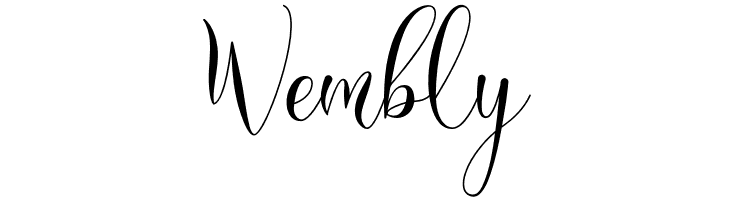
An elegant, flowing script font with interconnected letterforms and artistic flair.
An elegant script font with flowing loops and decorative flourishes.